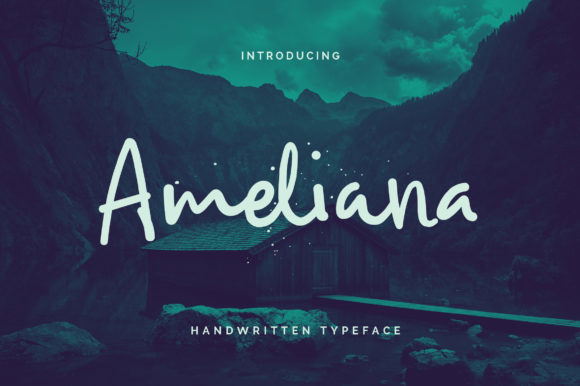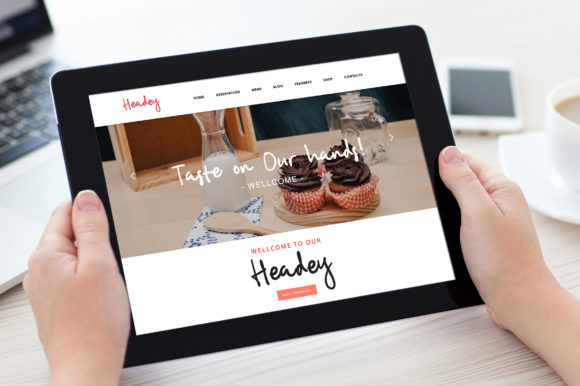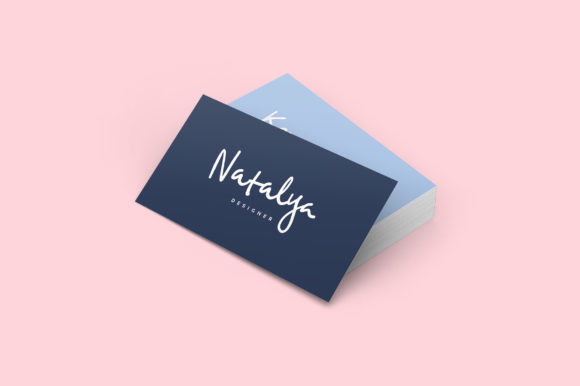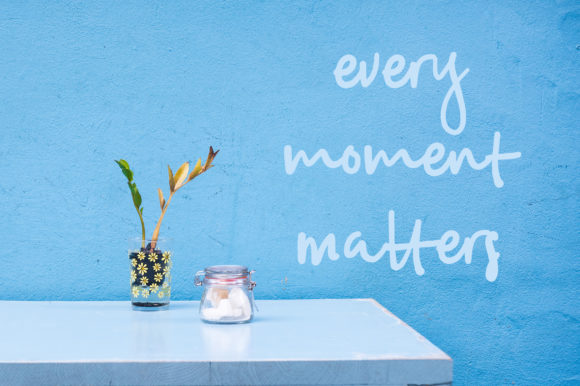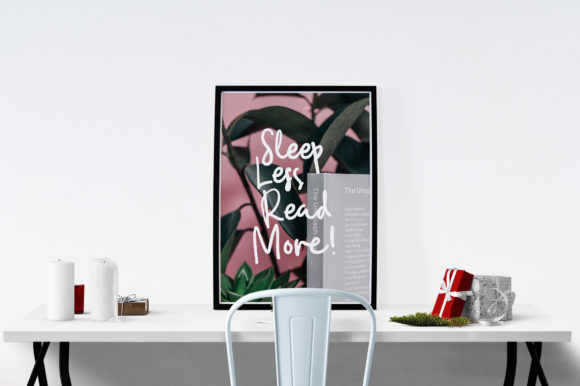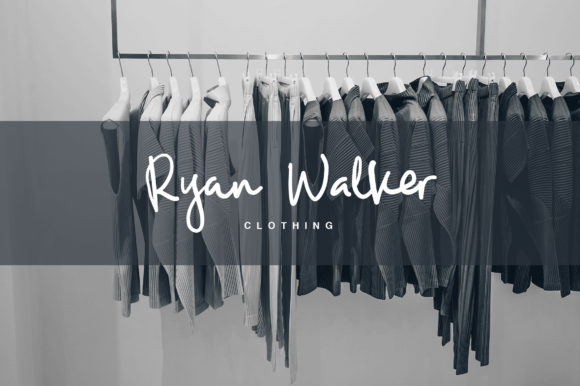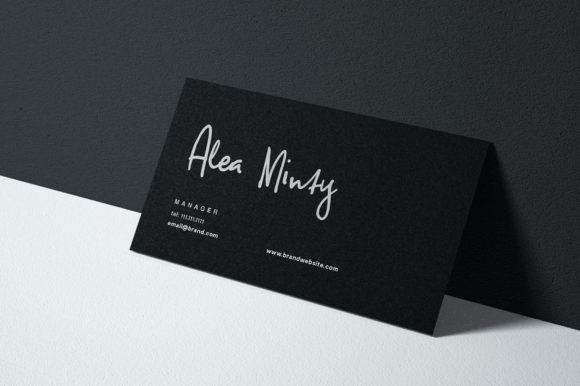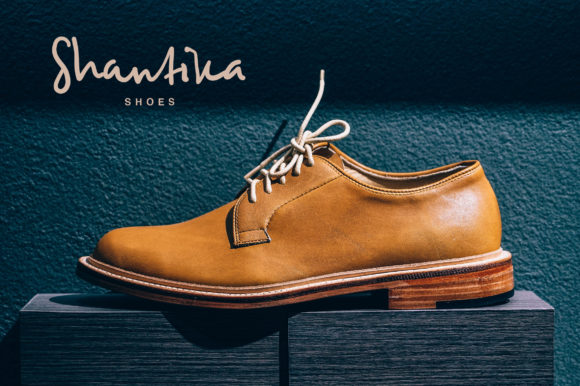
Ameliana Script Font
About Ameliana Script Font
Ameliana is a sweet and authentic script with a cool twist. It will turn any design project into a true standout!